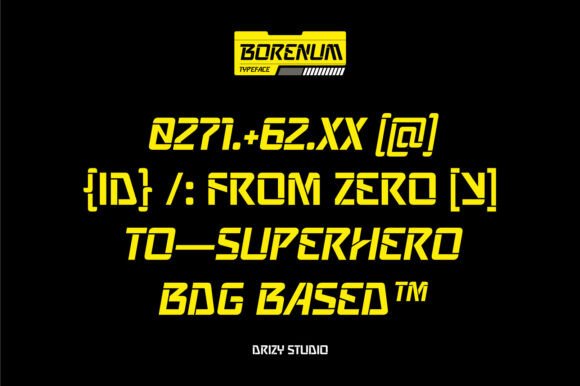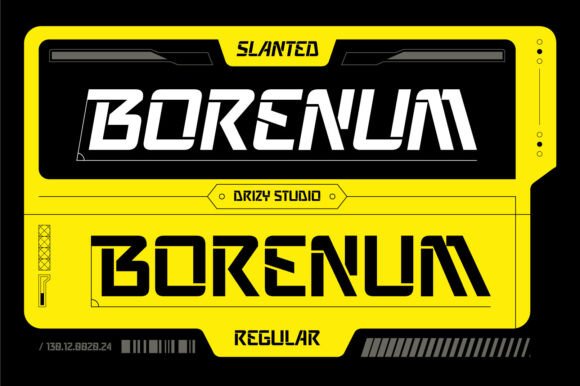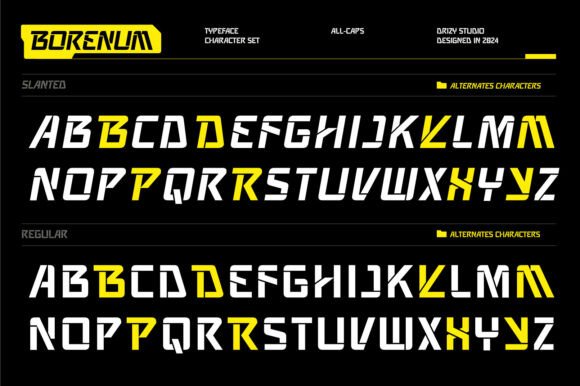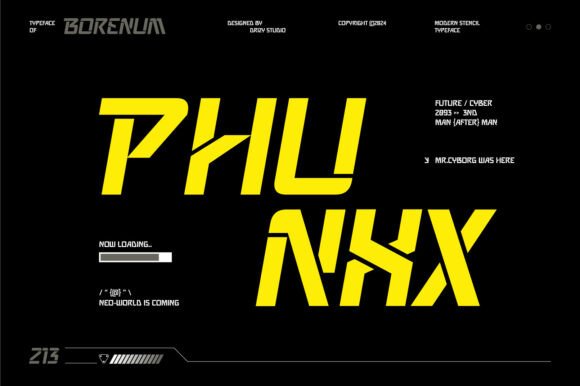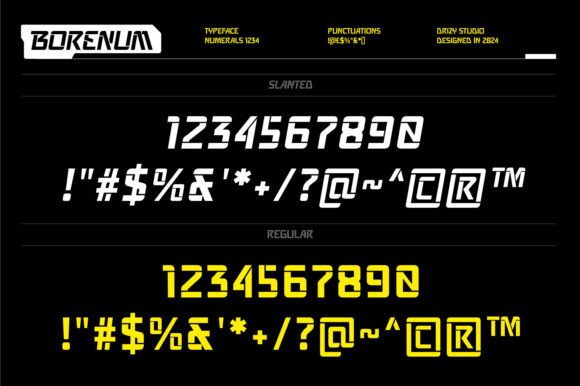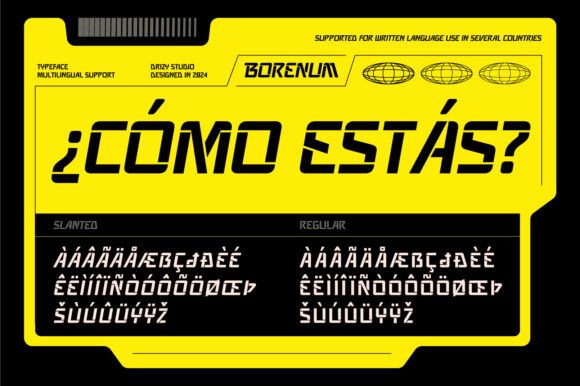
Borenum Font: Elevate Your Esports Designs with a Modern Stencil Font
In the world of esports, visual identity is crucial for teams, brands, and events. A well-designed font can make all the difference in conveying power, precision, and energy. Introducing Borenum, a bold and dynamic typeface specifically crafted to elevate your esports designs. With its sharp stencil cuts and sleek, modern appeal, Borenum is the perfect font for gaming logos, team branding, tournament posters, and more.
What Makes Borenum Unique?
Borenum’s unique design combines the edginess of stencil fonts with the sophistication of modern typography. Its bold and dynamic structure makes it perfect for creating captivating titles and eye-catching layouts that resonate with competitive and tech-savvy audiences. The font’s sharp stencil cuts add a touch of ruggedness, while its sleek lines and curves convey a sense of speed and agility.
Perfect for Esports Designs
Borenum is specifically designed to meet the needs of esports designers, marketers, and crafters. Its versatility allows you to create a wide range of designs, from gaming logos and team branding to tournament posters and social media graphics. The font’s modern appeal and bold structure make it perfect for creating visually striking designs that grab attention and leave a lasting impression.
Key Features of Borenum Font
- Bold and Dynamic Structure: Borenum’s bold and dynamic structure makes it perfect for creating eye-catching designs that stand out in the digital arena.
- Sharp Stencil Cuts: The font’s sharp stencil cuts add a touch of ruggedness and edginess, perfect for conveying power and precision.
- Sleek and Modern Appeal: Borenum’s sleek lines and curves convey a sense of speed and agility, making it perfect for esports designs.
- Versatile Structure: The font’s versatile structure allows you to create a wide range of designs, from titles and logos to posters and social media graphics.
- Pair it with Other Fonts: Borenum pairs well with other modern fonts, creating a unique and visually striking combination.
- Experiment with Colors: The font’s bold structure and sharp stencil cuts make it perfect for experimenting with different colors and gradients.
- Use it for Titles and Headings: Borenum is perfect for creating eye-catching titles and headings that grab attention and convey power and precision.
Why Choose Borenum Font?
There are many fonts available for esports designs, but Borenum stands out from the rest. Here are a few reasons why:
- Unique Design: Borenum’s unique design combines the edginess of stencil fonts with the sophistication of modern typography.
- High-Quality Design: The font is designed with high-quality craftsmanship, ensuring that it looks great in any design.
- Easy to Use: Borenum is easy to use and pairs well with other fonts, making it perfect for designers of all levels.
In conclusion, Borenum font is a bold and dynamic typeface specifically crafted to elevate your esports designs. With its sharp stencil cuts and sleek, modern appeal, this font exudes power, precision, and energy perfect for gaming logos, team branding, tournament posters, and more. Its versatile structure allows you to create captivating titles and eye-catching layouts that resonate with competitive and tech-savvy audiences. Unleash your creative prowess and make a statement with Borenum, the font designed to dominate the digital arena!